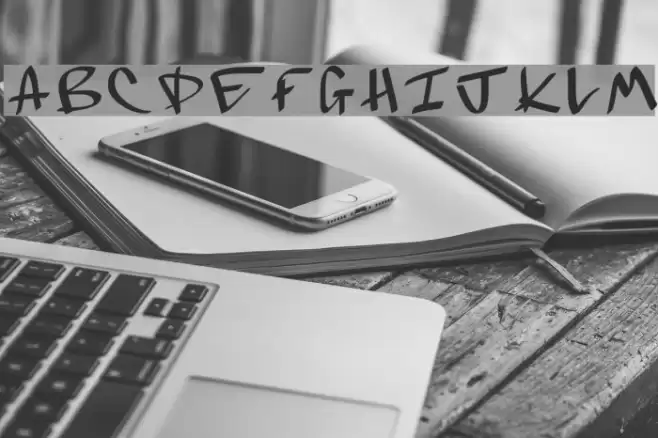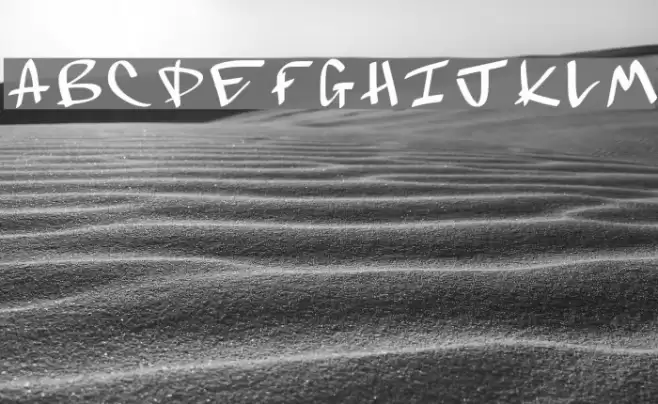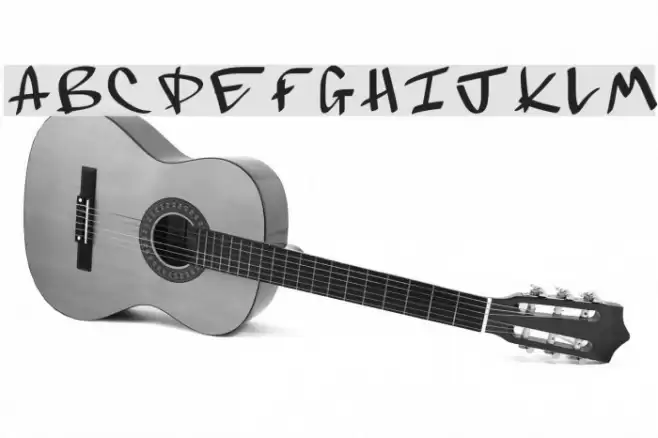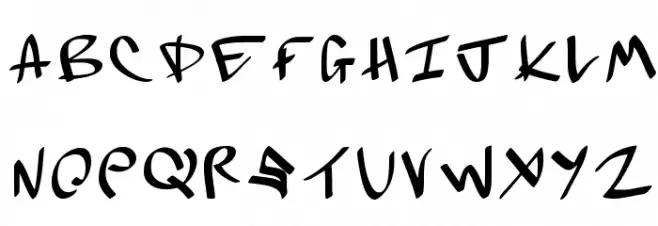
Dopebam_demo Regular Font
Dopebam_demo Regular Description
This font features a bold and dynamic style with a graffiti-like appearance. The characters are designed with sharp angles and a sense of motion, giving them an energetic and rebellious feel. The uppercase and lowercase letters maintain a consistent style, with unique flourishes that add to the overall aesthetic. The numbers and special characters are crafted to match the boldness of the alphabet, ensuring a cohesive look across all elements. This font is ideal for projects that require a strong, urban vibe.
A bold, graffiti-inspired font with dynamic, angular characters from Uncategorized fonts.
- Proposed Projects: Perfect for street art designs, music album covers, urban-themed posters, and edgy branding projects.
- Overall Style: Modern, Urban